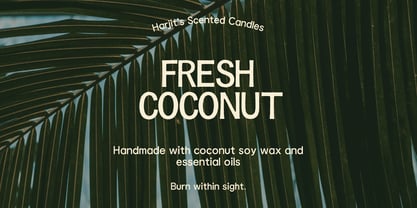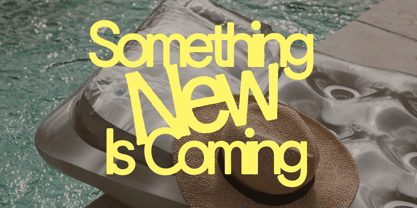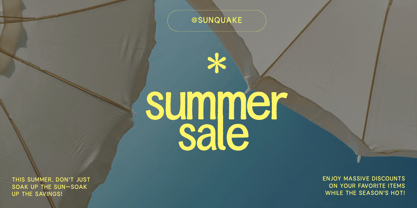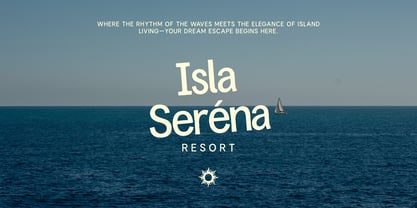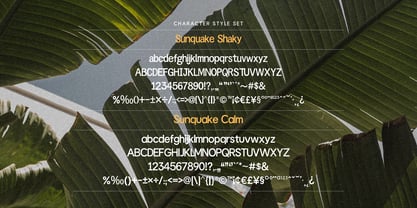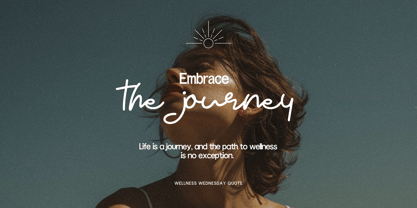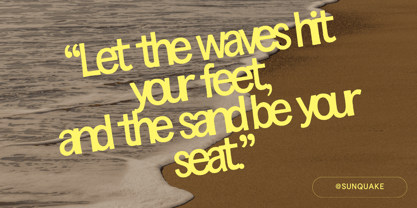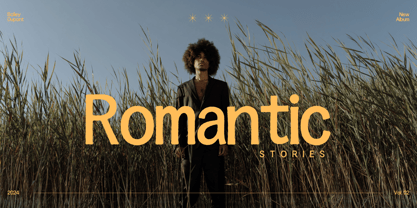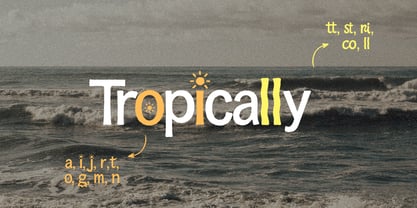
Sunquake
by Creacy Studio
The Sunquake Font Family was designed by Yosep Hendri Swandi and published by Creacy Studio. Sunquake contains 2 styles and family package options. More about this family
Sunquake Font Duo is a unique pairing that combines the playful, distorted display style of Sunquake with the clean, modern design of Sunquake Calm. The Sunquake font features uneven strokes and a hand-drawn feel, making it perfect for bold headlines, logos, and creative designs that need a dynamic touch. On the other hand, Sunquake Calm offers a smooth, geometric sans-serif style with soft, rounded terminals, ideal for body text, subheadings, and captions that require readability and balance.
This font duo brings versatility and creativity to a wide range of design projects, from tropical branding and vintage-inspired posters to minimalist websites. With OpenType features, including alternate characters and ligatures, Sunquake Font Duo allows for full customization. Whether you're designing for a beach resort, product packaging, or a modern brand, this duo provides the perfect combination of boldness and elegance for your creative needs.
Designers: Yosep Hendri Swandi
Foundry: Creacy Studio